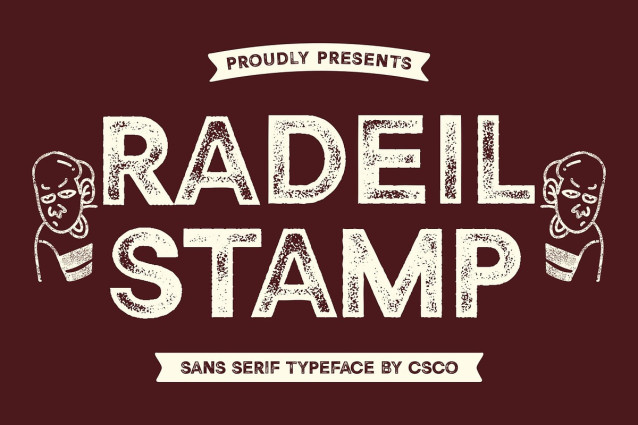
Radeil Stamp Font
Radeil Stamp Font is a modern sans-serif font that fuses bold geometry with rugged texture. Its strong, structured letterforms create a commanding presence, while the stamp effect introduces an organic, distressed feel—evoking the authenticity of hand-printed type.
Geometric Precision Meets Raw Texture Built on a foundation of clean, modern forms, Radeil Stamp emphasizes clarity and legibility through bold lines and balanced proportions. The geometric design ensures a contemporary and professional look, while the stamp texture adds depth, making it both visually striking and richly characterful.
Hand-Printed Look for Authentic Impact The stamp effect brings a tactile, slightly worn aesthetic that softens the font’s sharpness, adding human warmth and a raw, industrial feel. This fusion of precision and imperfection offers a unique visual voice that’s ideal for projects that want to communicate strength with soul.
Perfect for Bold Branding and Creative Design Whether used for branding, packaging, poster headlines, or creative merchandise, Radeil Stamp delivers both visual impact and unique personality. It fits seamlessly into designs that need to communicate strength, authenticity, and creative edge, making it ideal for bold editorial layouts, streetwear labels, tech-inspired visuals, or any project that benefits from a modern yet rugged aesthetic.